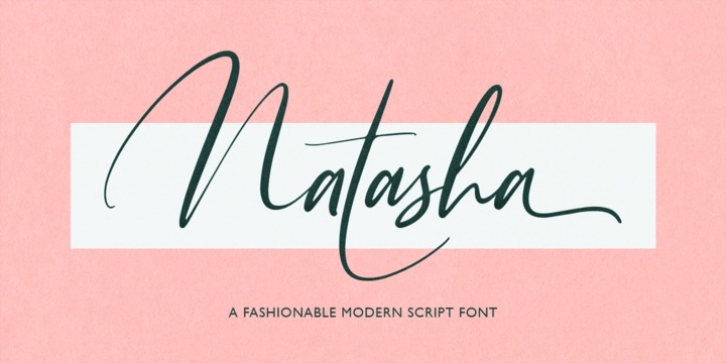
Natasha is a modern script typeface that every single letter contains beautiful characters alternates and feature ligatures. This font come with 70+ Ligatures, Contextual alternates, and Stylistic alternates. This font is stylish, fresh and ideal for adding the special look to your designs.
Natasha font that is special for fashion and matches applies in some designs such as the logotype, brand, magazine, website or blog headlines, packaging, branding, quotes, invitation cards, greeting cards, business cards, and wedding more.